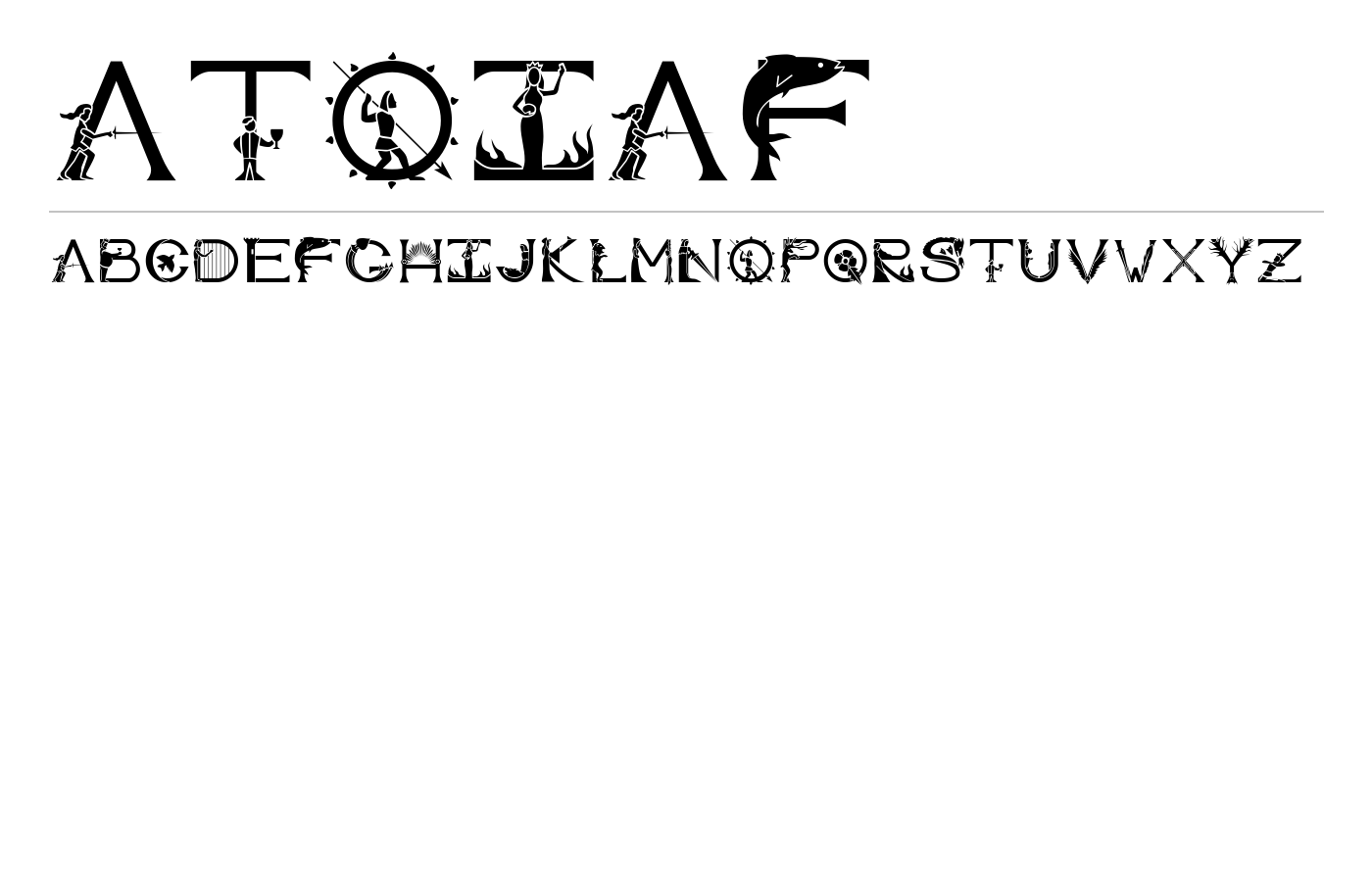
ATOIAF is a decorative serif font rich with medieval and fantasy-themed illustrations integrated within each letter, giving it a highly stylized and intricate appearance. It feels adventurous and dramatic, making it perfect for projects related to fantasy, storytelling, games, or historic themes where a bold, eye-catching display font is needed to set an immersive tone. This font works best in logos, posters, or headlines where its unique artistic details can shine without compromising legibility.
ATOIAF Font